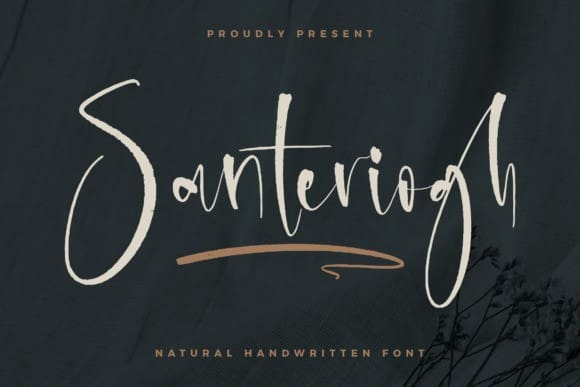
Santeriogh Script Font
Santeriogh Script Font, is a romantic and sweet calligraphy typeface with characters that dance along the baseline. It has a casual, yet elegant touch.